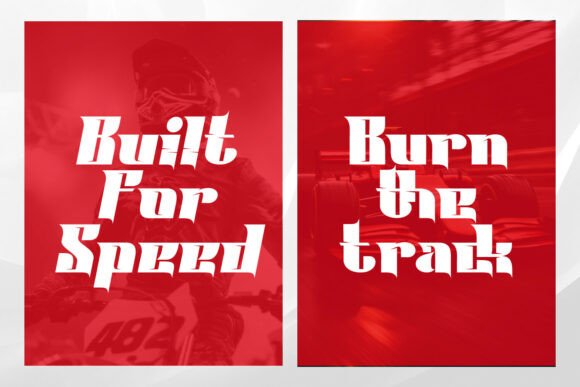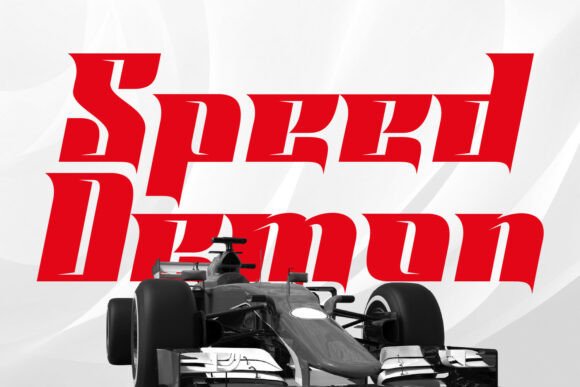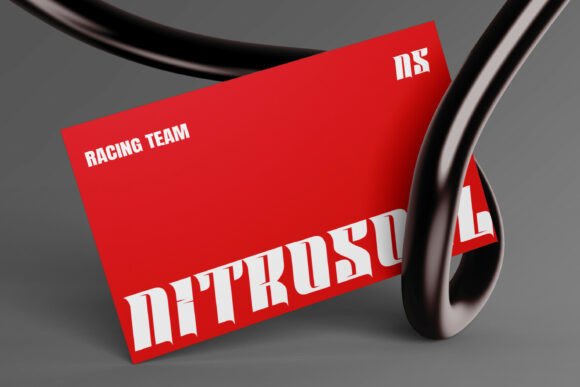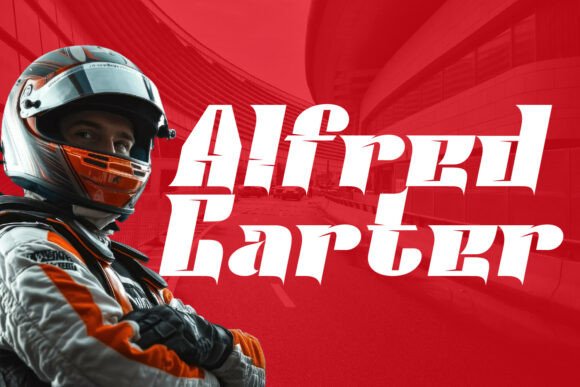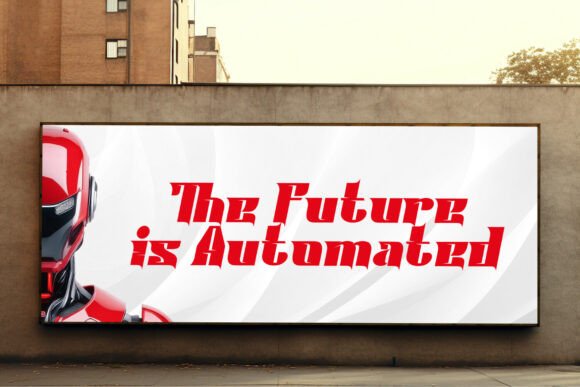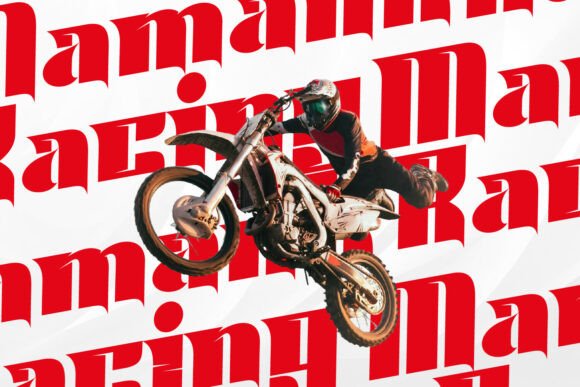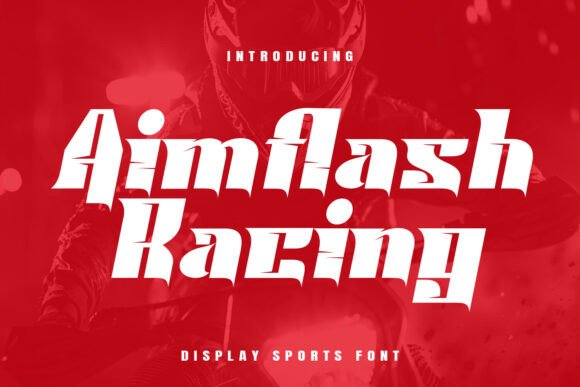
Aimflash Font: Unleash the High-Octane Power in Your Designs
Are you looking for a font that can add a thrilling touch of speed, potency, and vigor to your designs? Look no further than Aimflash, a striking display font that’s engineered to take your creative projects to the next level. Inspired by the high-energy world of motorsports, Aimflash is the perfect choice for designers and crafters who want to create bold, dynamic, and attention-grabbing visuals.
The Birth of Aimflash: A Font with a Need for Speed
Aimflash is more than just a font – it’s an experience. Born from the adrenaline-fueled universe of motorsports, this font is designed to evoke the thrill of speed and competition. With its jaunty angles and lightning-fast lines, Aimflash boasts an assertive, gutsy posture that’s sure to grab attention. Whether you’re creating racing banners, auto identity branding, esports insignia, or headlines that pulse with energy, Aimflash is the ideal choice.
Key Features of Aimflash Font
- Dynamic and Bold: Aimflash is a display font that’s designed to make a statement. Its bold and dynamic lines are perfect for creating eye-catching headlines, titles, and slogans.
- Motorsport Inspiration: With its roots in motorsports, Aimflash embodies the spirit of speed, competition, and adrenaline.
- Versatile: Aimflash is perfect for a wide range of design projects, from racing banners and auto branding to esports insignia and high-energy headlines.
- Assertive and Gutsy: This font has a confident, assertive posture that’s sure to grab attention and leave a lasting impression.
Why Choose Aimflash Font?
So why choose Aimflash font for your design projects? Here are just a few reasons:
- Add a Touch of Adrenaline: With Aimflash, you can add a thrilling touch of speed and energy to your designs.
- Stand Out from the Crowd: This bold and dynamic font is sure to grab attention and set your designs apart from the competition.
- Perfect for High-Energy Projects: Whether you’re working on a racing banner or an esports insignia, Aimflash is the perfect choice for projects that require a high-octane punch.
How to Use Aimflash Font in Your Designs
Aimflash font is easy to use and can be incorporated into a wide range of design projects. Here are a few tips for using Aimflash in your designs:
- Pair with Neutral Fonts: Pair Aimflash with neutral fonts to create a striking contrast and add visual interest to your designs.
- Experiment with Colors: Try experimenting with different colors to find the perfect combination that brings out the bold and dynamic lines of Aimflash.
- Use for Headlines and Titles: Aimflash is perfect for headlines and titles that require a bold and attention-grabbing font.
Aimflash font is more than just a font – it’s a call to push boundaries and take your designs to the next level. With its bold and dynamic lines, jaunty angles, and lightning-fast lines, Aimflash is the perfect choice for designers and crafters who want to add a high-octane punch to their designs. Whether you’re working on a racing banner, auto identity branding, or esports insignia, Aimflash is the ideal choice. So why wait? Download Aimflash font today and unleash the power of speed and energy in your designs!